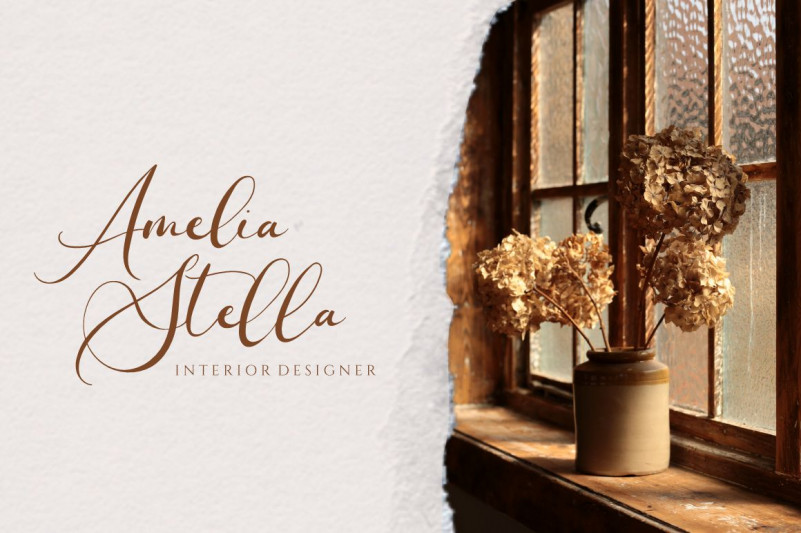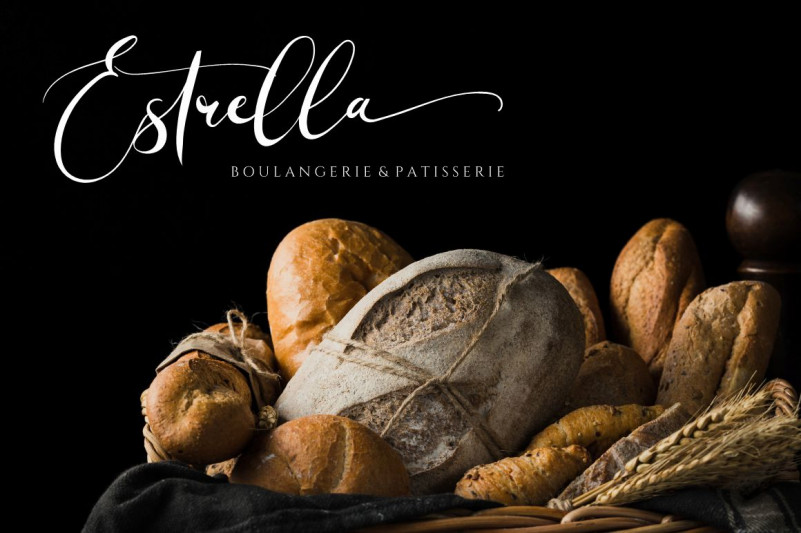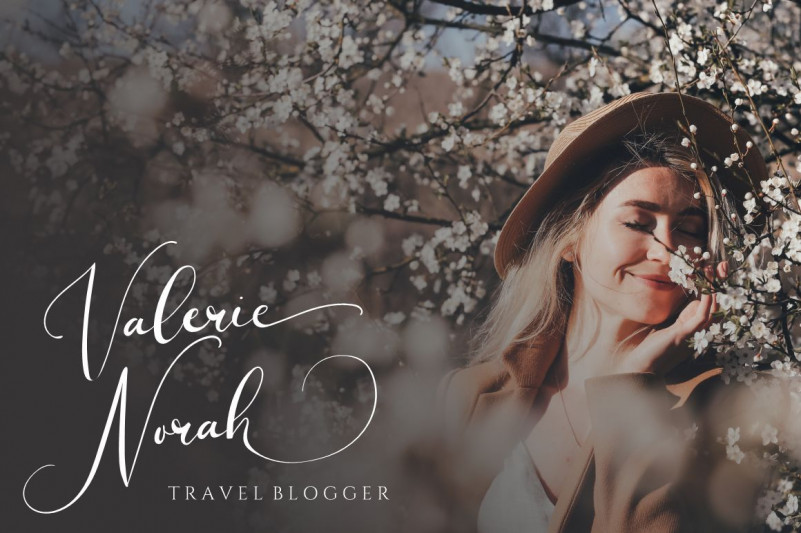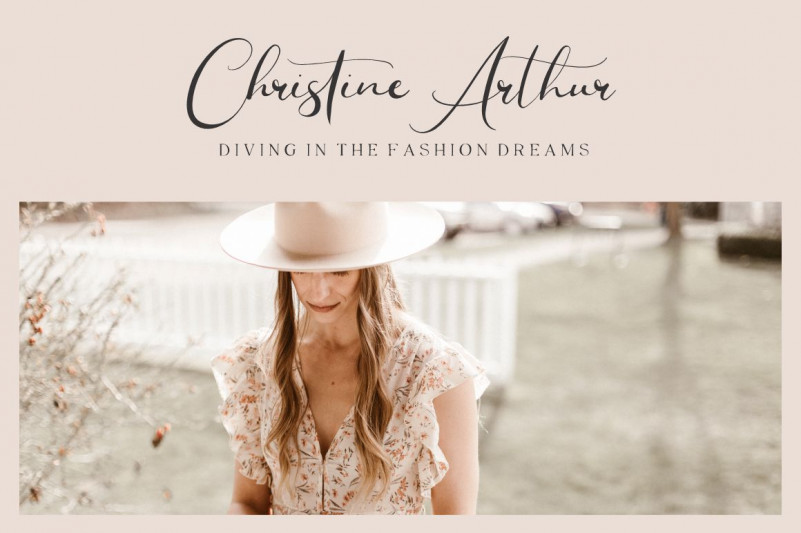
Elisabeth Raelyn – Wedding Calligraphy Font is a beautiful light handwritten font with a unique feel and a stunning impact. It will add a luxury spark to any design project that you wish to create! It has an authentic modern calligraphy look that is suitable for branding, signature, wedding invitation, promotion, product packaging, and other needs.
This font is PUA encoded which means you can access all of the amazing glyphs and ligatures with ease!